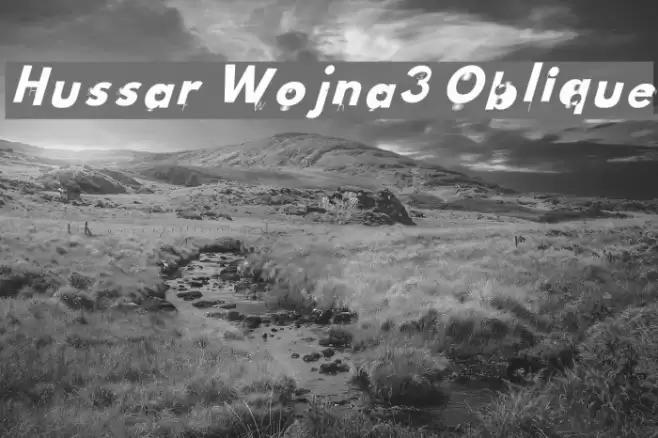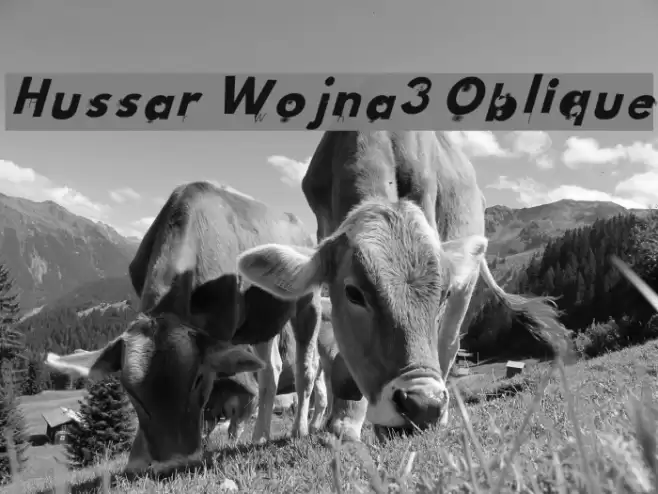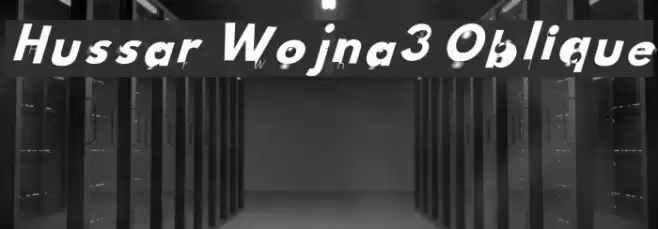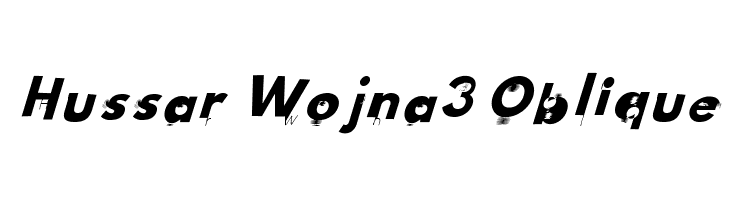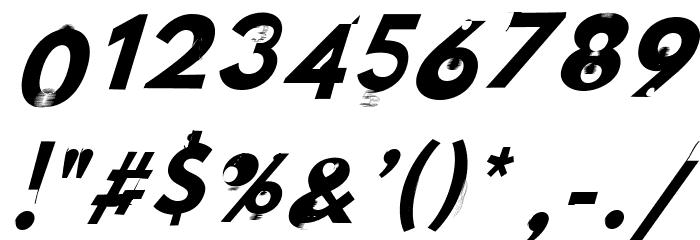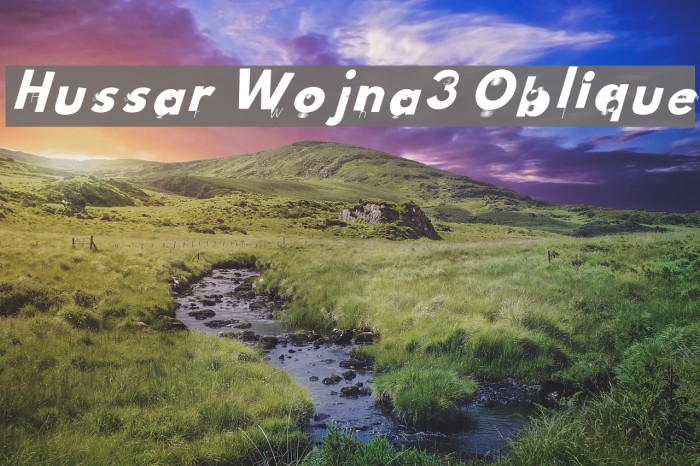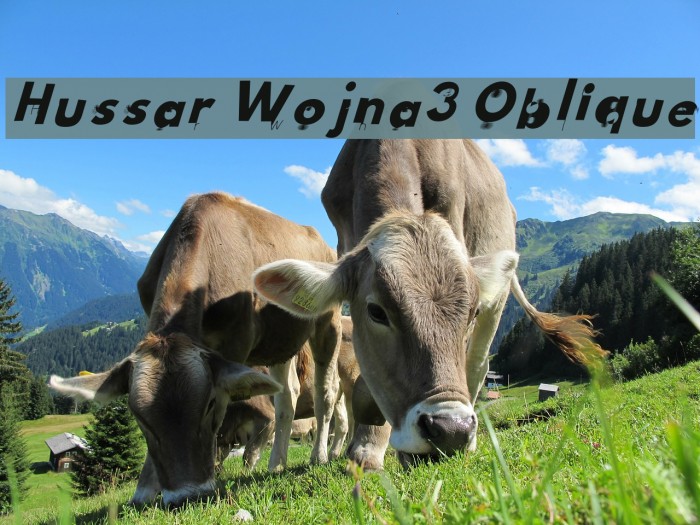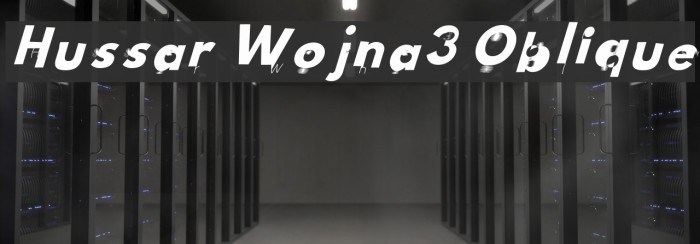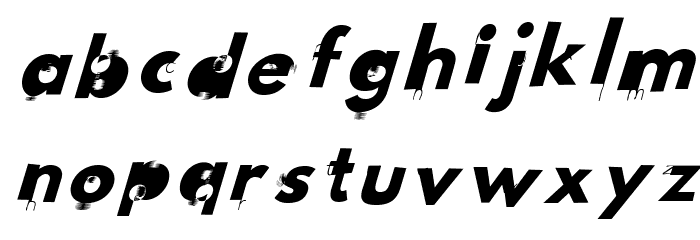
Hussar Wojna3 Oblique
This font features a dynamic and bold oblique style, characterized by its strong diagonal emphasis and sharp angles. The uppercase and lowercase letters exhibit a consistent slant, creating a sense of movement and urgency. The strokes are thick, providing a robust and impactful appearance, while the spacing between characters is relatively tight, enhancing its compact and cohesive look. The numerals and special characters maintain the same slanted style, ensuring uniformity across all glyphs. This font's energetic and modern aesthetic makes it suitable for projects that require a striking and attention-grabbing typeface.
A bold, oblique font with a strong diagonal emphasis and tight spacing.
- Proposed Projects: Ideal for posters, headlines, branding, and any design requiring a dynamic and bold statement.
- Character Spacing: Tight
- Use Case: Headlines, Logos, Posters